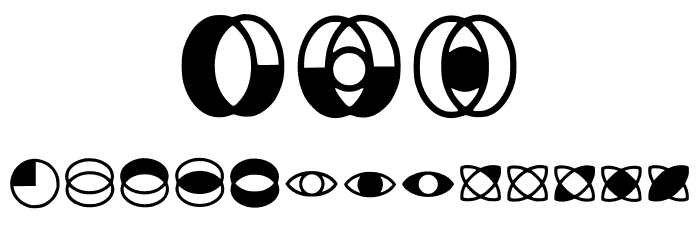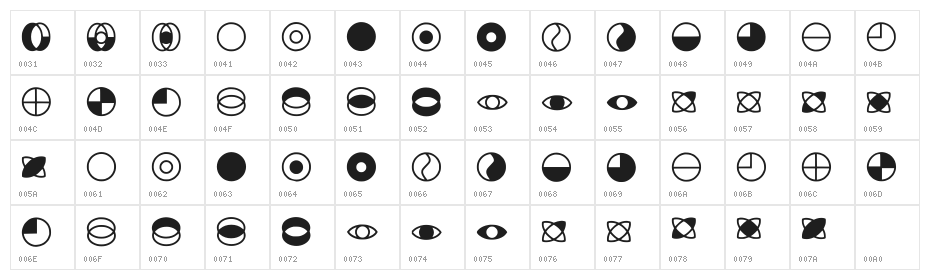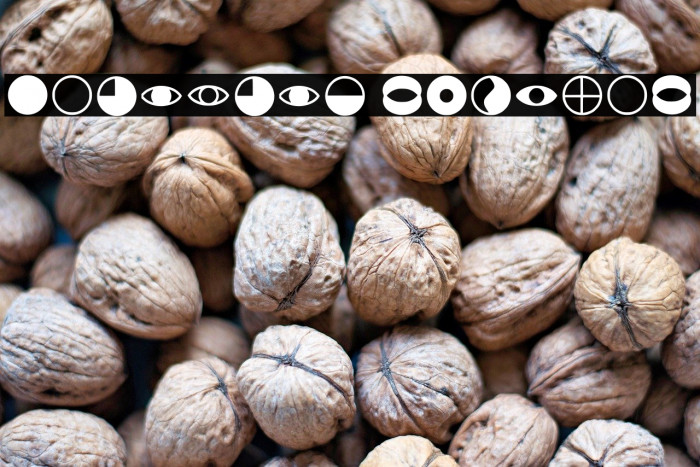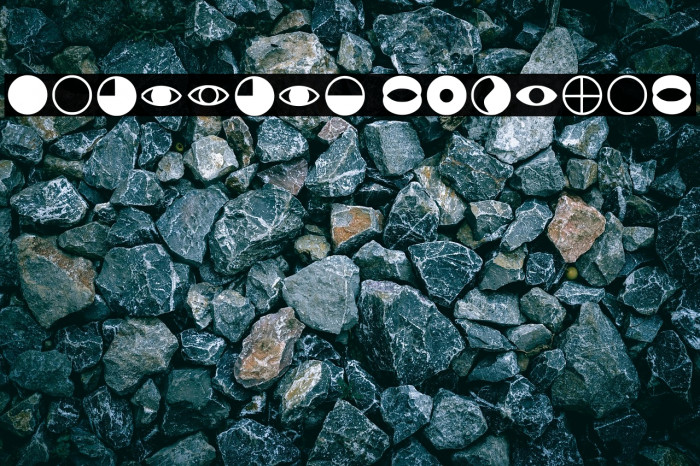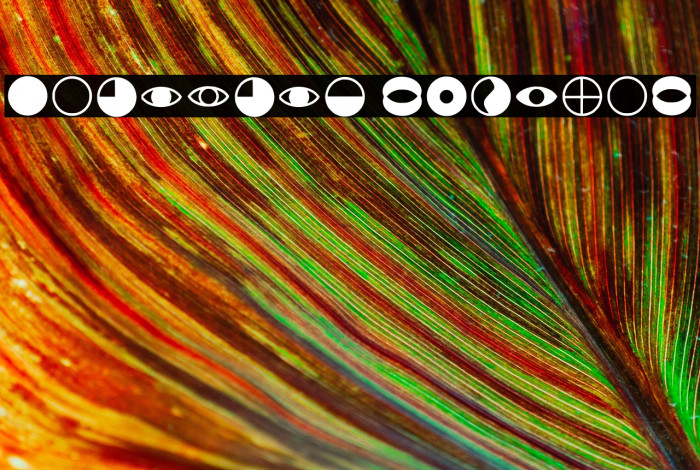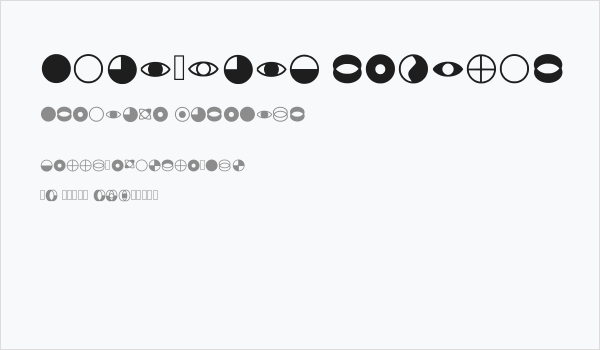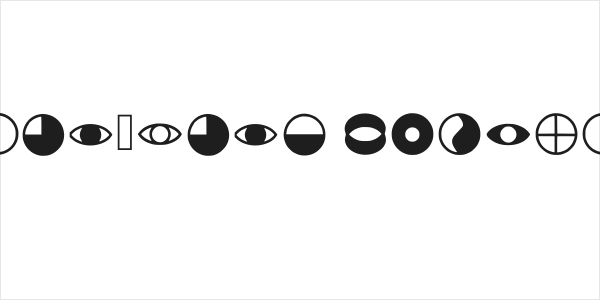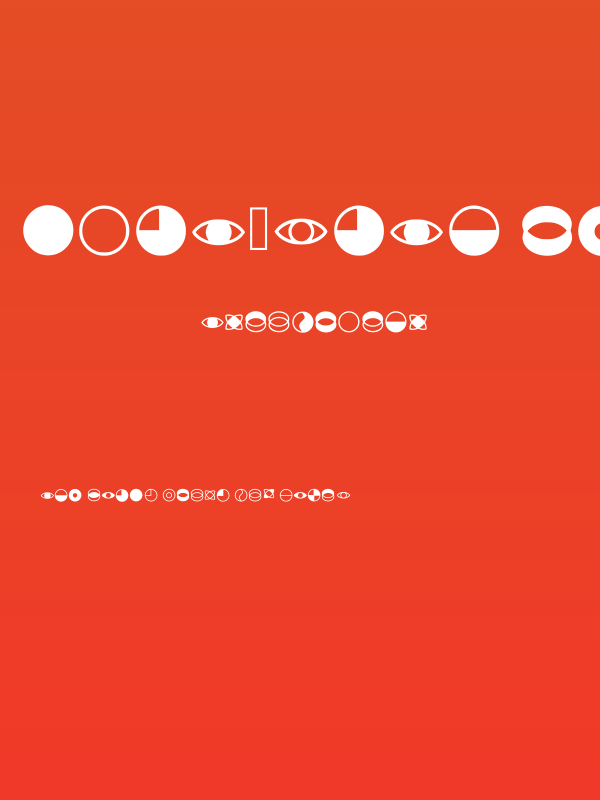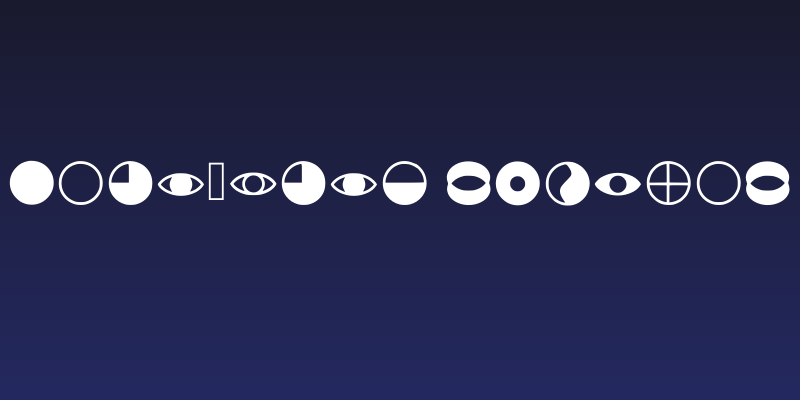
Cait_sith Regular Font
Cait_sith Regular Description
This font features a highly abstract and geometric design, characterized by circular and elliptical shapes that create a unique visual language. Each character is represented by a combination of filled and outlined circles, often intersecting or overlapping, which gives the font a modern and artistic feel. The design is consistent across all characters, maintaining a uniformity that is both visually striking and harmonious. The font's abstract nature makes it more suitable for decorative purposes rather than readability, as it transforms traditional letterforms into a series of symbolic representations.
| Use Case | Logos, Decorative elements, Art projects |
| Proposed Projects | Ideal for artistic projects, modern art installations, branding for creative industries, or as a decorative element in graphic design. |